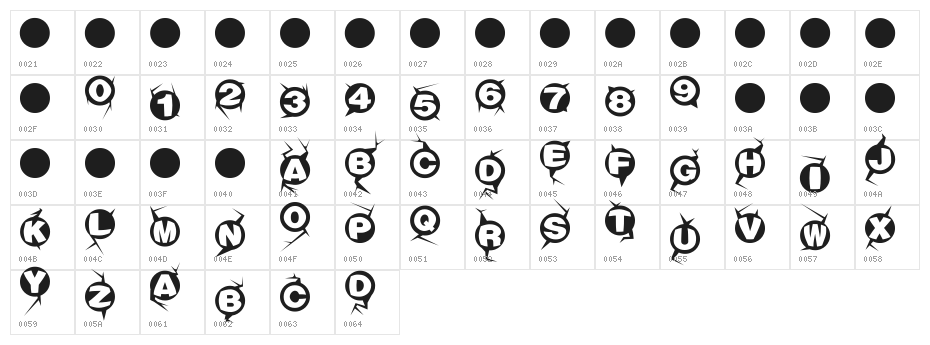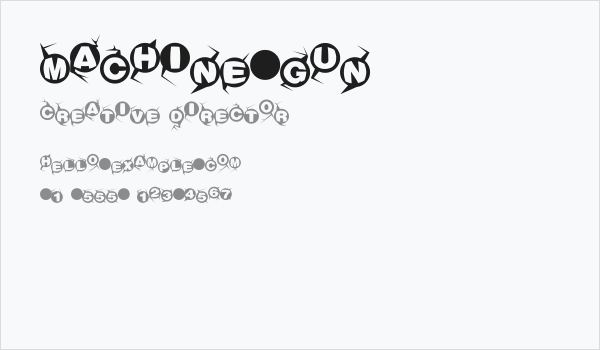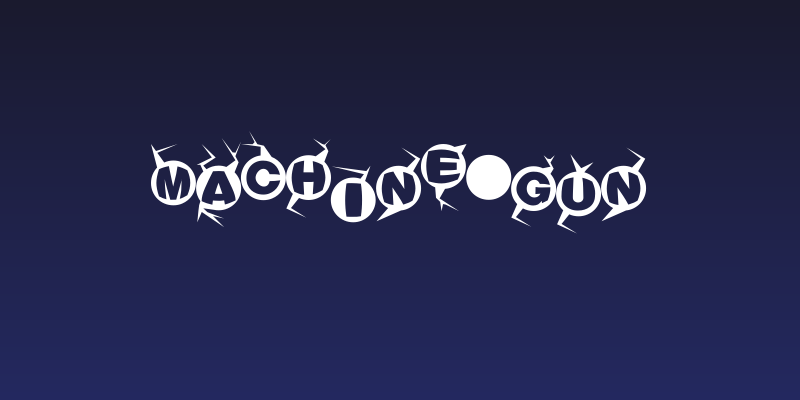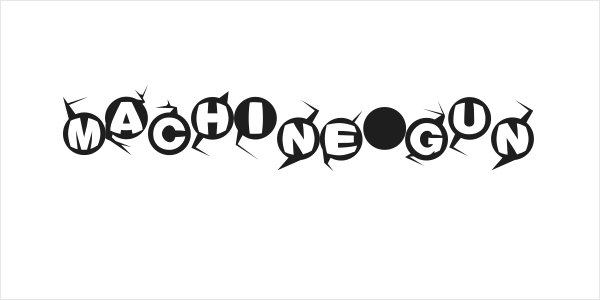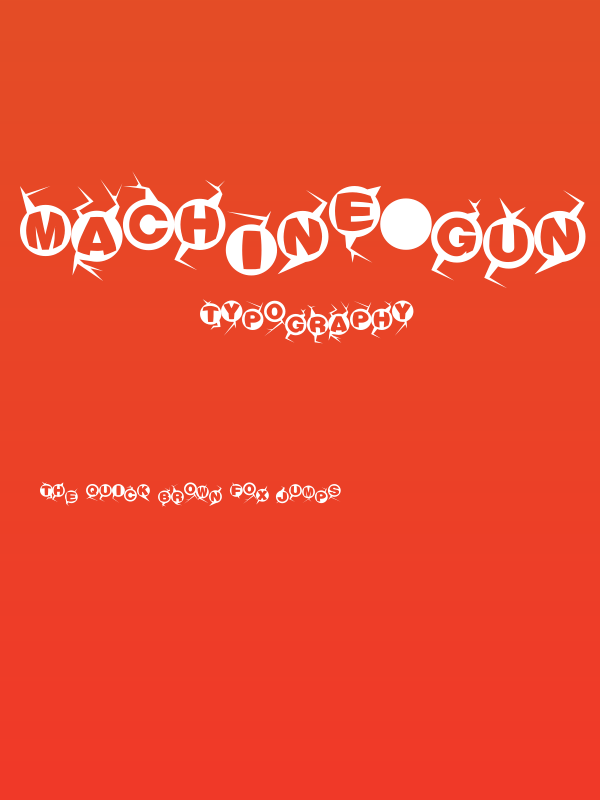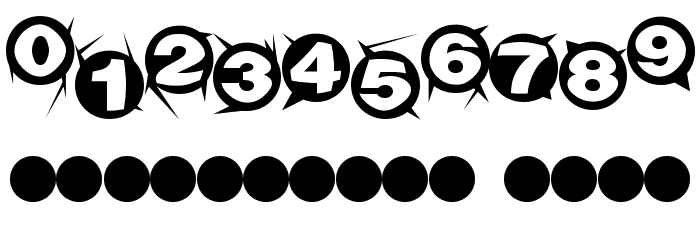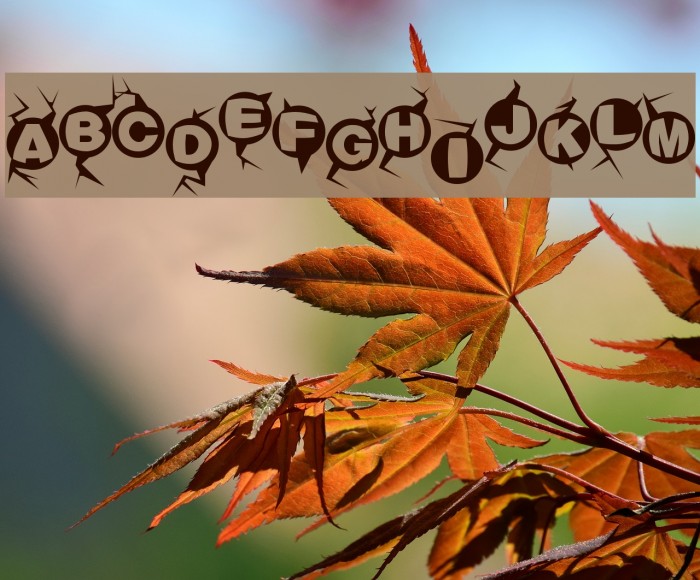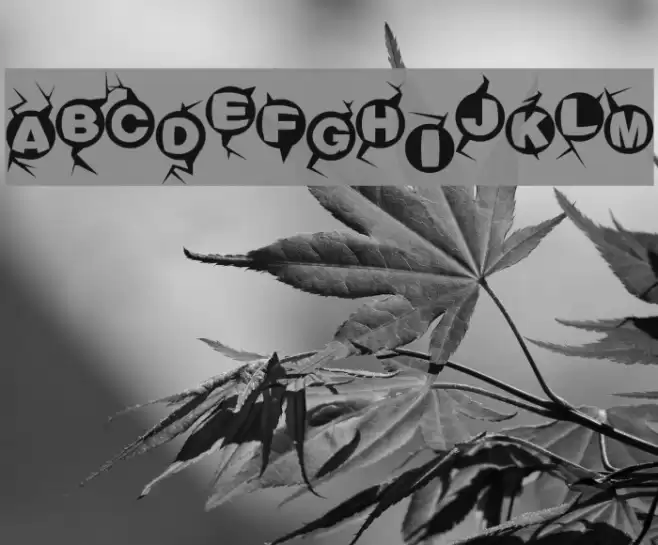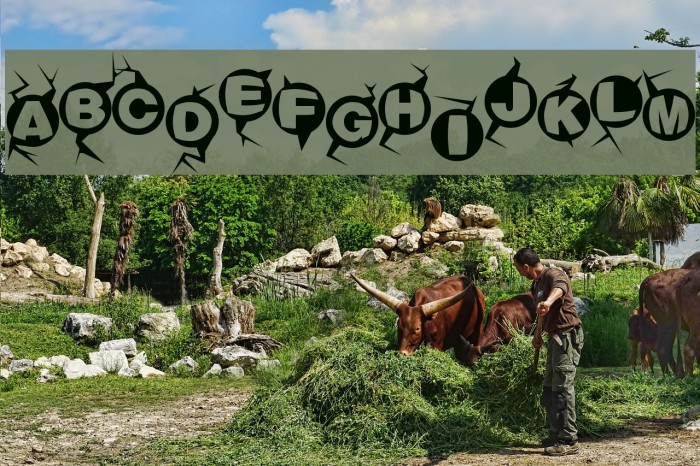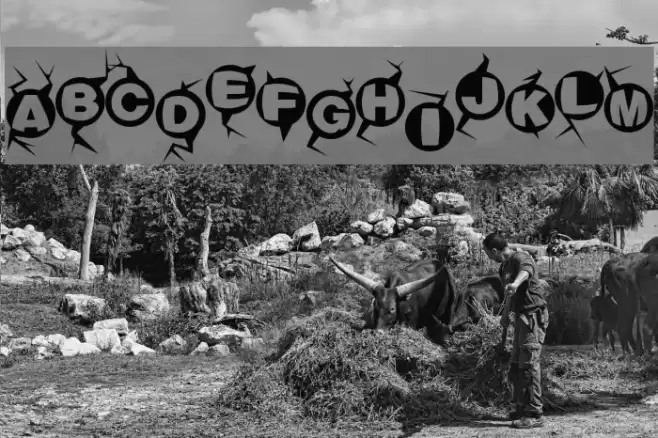
Machine-gun Font
| 全体的なスタイル | Modern, Edgy |
| おすすめプロジェクト | Perfect for posters, album covers, event flyers, and branding that requires a bold, edgy look. |